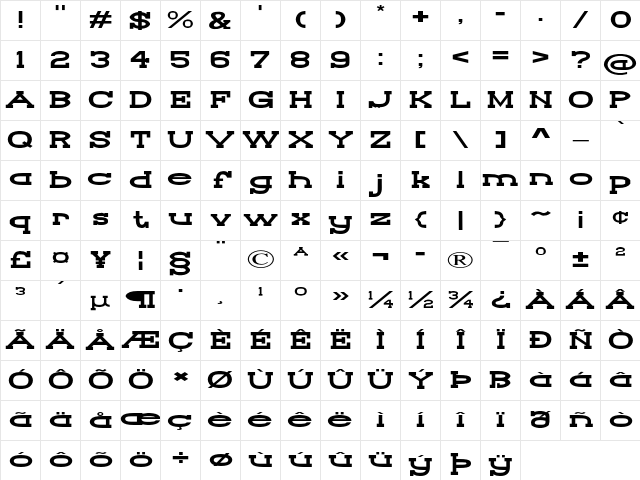
Range Rider Extra-expanded Regular
Style: Extra-expanded Regular
Range Rider Family
Range Rider Extra-expanded Regular
Design Context for Range Rider
Range Rider is a composed and adaptable typeface that performs quietly and consistently across a wide range of design contexts.